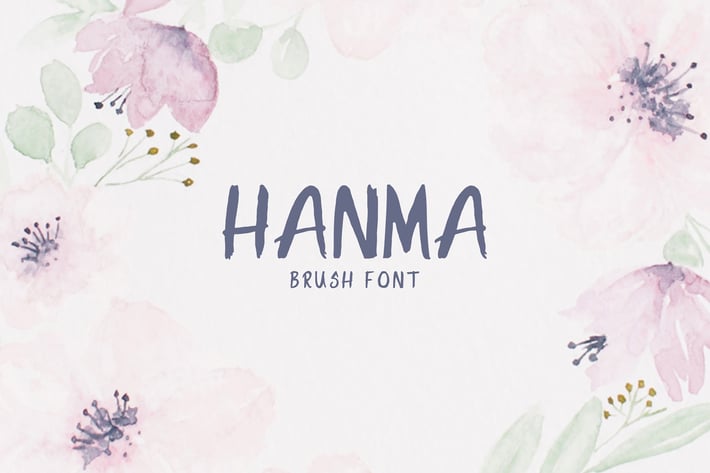
Hanma Brush Font
Hanma is a stylish contemporary brush font you've been looking for, Its unique flow and style makes it perfect to use for prints, logos, quotes, badges, labels, blog, websites, designs, headlines, banners, posters, magazines, promotional product, templates, etc.
Hanma Font Features:
- Uppercase Multilingual Letters
- Lowercase Multilingual Letters
- Non English Characters ( Latin Extended A )
- ABCDEFGHIJKLMNOPQRSTUVWXYZ
- abcdefghijklmnopqrstuvwxyz
- 0123456789
- !"#$€%&'()*+,-./:;Õ=?@[]^_`{|}~ ¡£©®¿
- ÀÁÂÃÄÆÈÉÊËÌÍÎÏÑÒÓÔÕÖØÙÚÛÜÝàá
- âãäæèéêëìíîïñòóôõöøùúûüýÿ